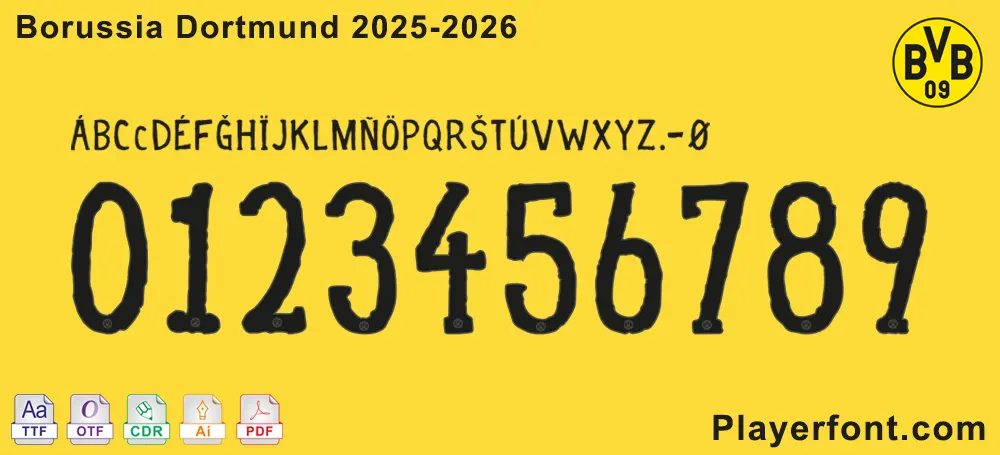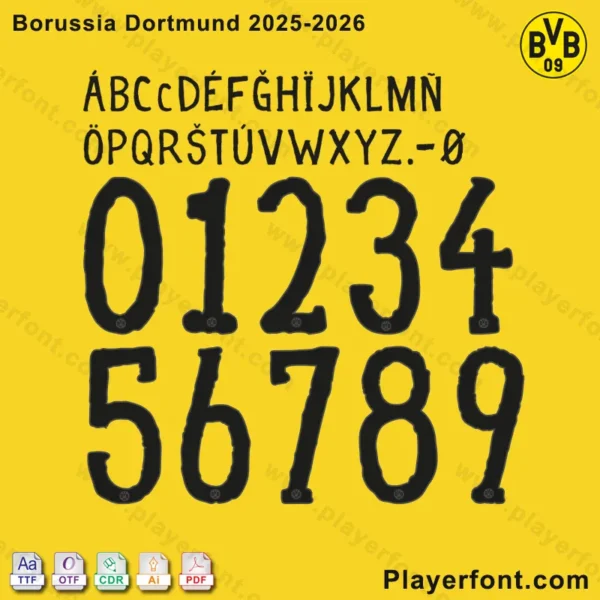
Show your passion for the Black & Yellows with the official Borussia Dortmund 2025-2026 Font Download from Playerfont.com! This premium font package delivers the exact typeface seen on the back of Borussia Dortmund jerseys for the upcoming 2025-2026 season, including both the distinctive player numbers and the sleek lettering.
- Authenticity: Recreate the genuine look of the BVB kit with this precise, officially styled font.
- Versatility: Ideal for a wide range of uses, from custom jersey printing and fan banners to digital graphics and creative design projects.
- Borussia Dortmund Fans: Personalize your own replica jerseys with your favorite player’s name and number, or create unique fan apparel.
- Graphic Designers: Incorporate a professional, Bundesliga-specific font into your design portfolio.
- Customization Businesses: Offer authentic BVB lettering and numbering for your customers’ jerseys and merchandise.